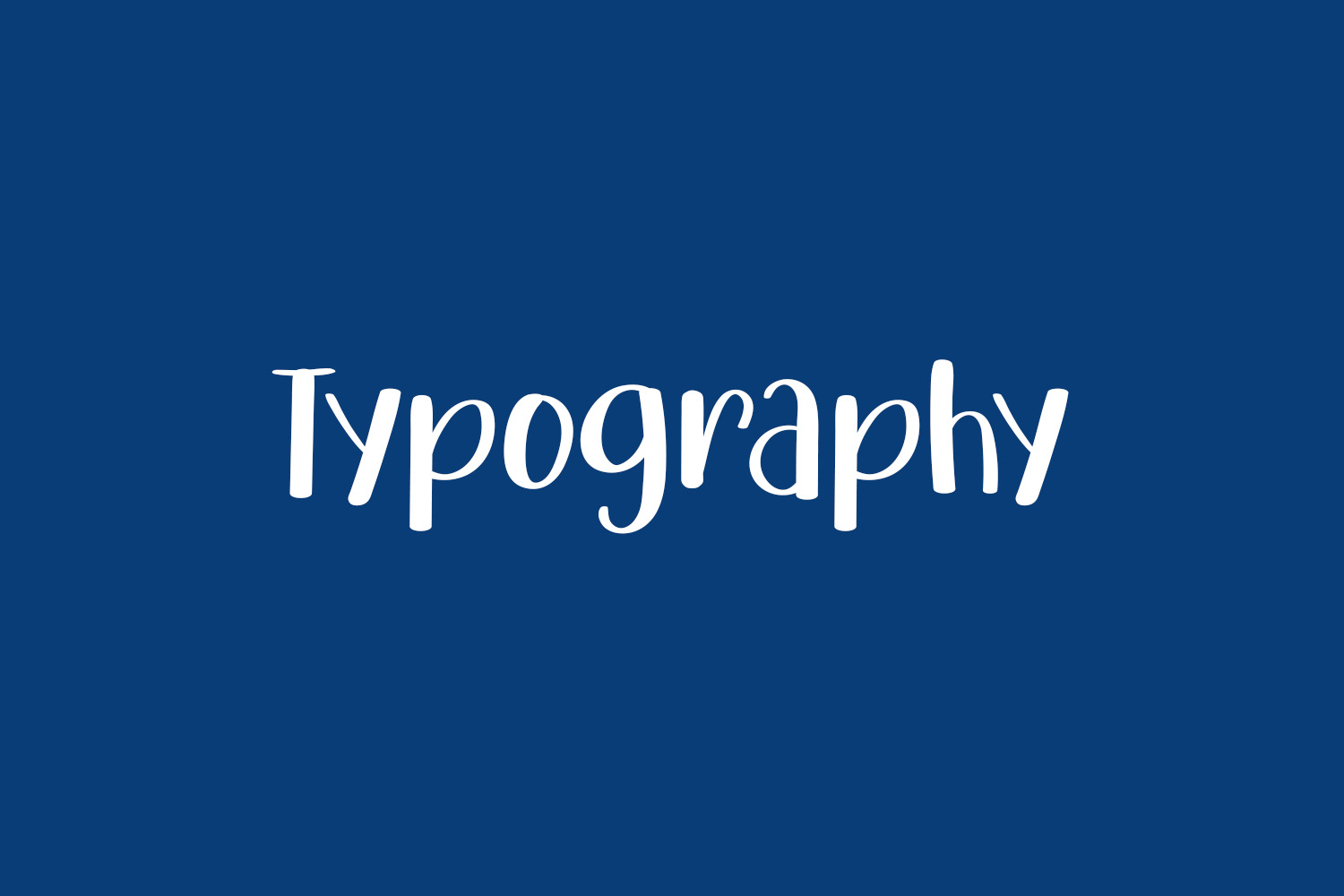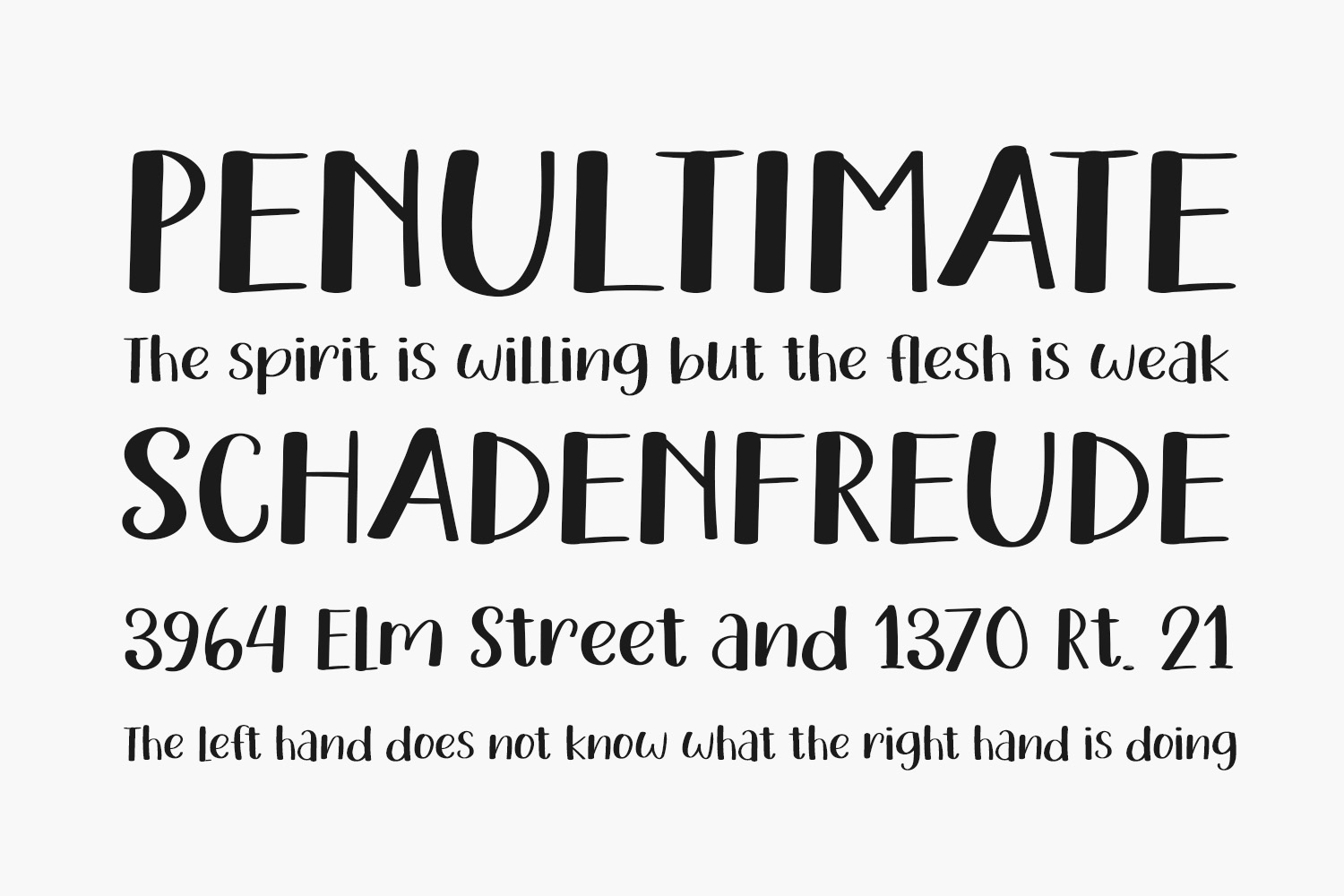
Typography Free Font is a cool looking and friendly display font. No matter the topic, this font will be an incredible asset to your fonts’ library, as it has the potential to elevate any creation. Typography Free Font was designed by Luluk Surotul and is free for personal use only. Please purchase the full version for commercial use.